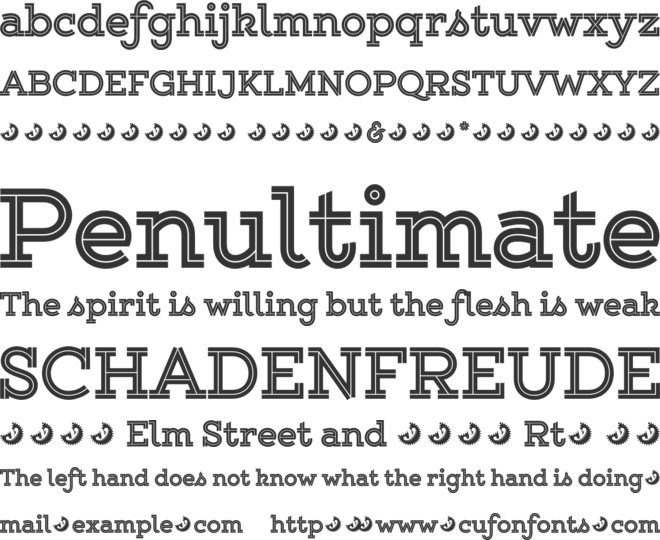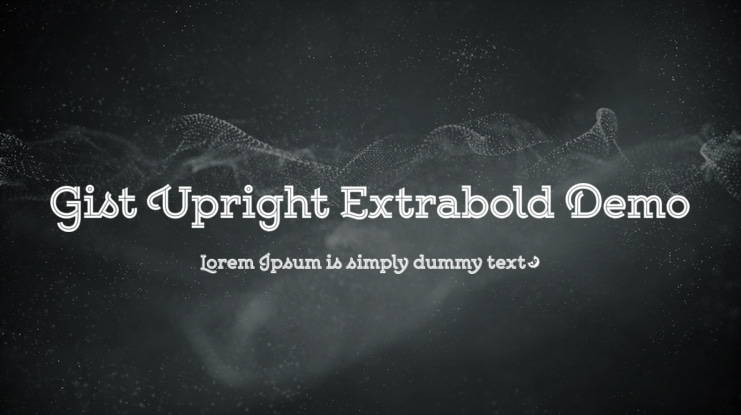
Gist Upright Extrabold Demo Font
Ryan Martinson
Gist Upright Extrabold Demo includes all the upper and lowercase characters and funky alternates in the normal Gist family, but doesn't include numbers, punctuation and other characters.
Gist from Yellow Design Studio is an inline slab serif with a retro yet modern vibe. It’s a collision between monoline slab and indie script. With 627 glyphs per weight, it’s highly customizable…either keep it simple with the base character set or use ligatures, alternates and swashes for extra flair. All-caps typesettings have an especially retro edge. Also included are line layers for adding color to the inline areas.